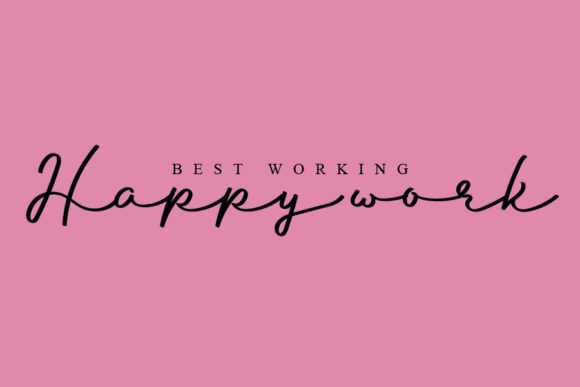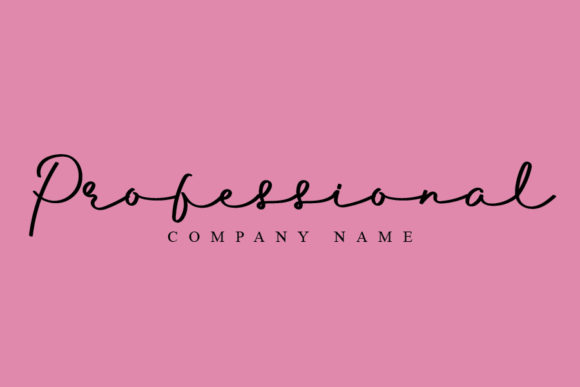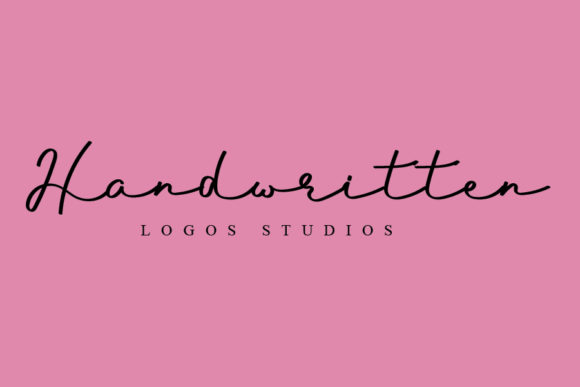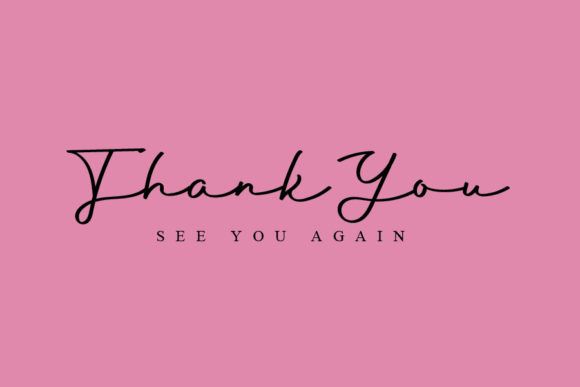
Introducing Hanedda Font: The Sweet and Flowing Handwritten Font for Your Creative Projects
Are you a designer or crafter looking for a font that adds a touch of elegance and whimsy to your creative projects? Look no further than Hanedda Font, a beautiful and flowing handwritten font that’s perfect for a variety of applications. In this article, we’ll take a closer look at Hanedda Font, its features, and how you can use it to elevate your designs.
What is Hanedda Font?
Hanedda Font is a stunning handwritten font that’s designed to add a touch of sweetness and sophistication to your designs. With its flowing curves and elegant lines, Hanedda Font is perfect for creating beautiful wedding invitations, thank you cards, quotes, greeting cards, logos, business cards, and more.
Key Features of Hanedda Font
- Handwritten with love: Hanedda Font is carefully crafted with a handwritten touch, giving it a unique and personal feel.
- Flowing and sweet: The font’s flowing curves and sweet lines make it perfect for creating elegant and sophisticated designs.
- Versatile: Hanedda Font can be used for a variety of applications, from wedding invitations to business cards, and everything in between.
- Easily readable: Despite its elegant and cursive nature, Hanedda Font is easily readable, making it perfect for body text and captions.
Use Cases for Hanedda Font
Hanedda Font is a versatile font that can be used for a wide range of creative projects. Here are some use cases to get you started:
- Wedding Invitations: Add a touch of elegance and sophistication to your wedding invitations with Hanedda Font.
- Thank You Cards: Express your gratitude with beautifully designed thank you cards featuring Hanedda Font.
- Quotes and Posters: Create stunning quotes and posters with Hanedda Font that will grab attention and inspire your audience.
- Greeting Cards: Design beautiful greeting cards for special occasions, such as birthdays, anniversaries, and holidays.
- Logos and Branding: Use Hanedda Font to create a unique and memorable logo for your brand or business.
- Business Cards: Stand out from the crowd with beautifully designed business cards featuring Hanedda Font.
Tips for Using Hanedda Font
Here are some tips to help you get the most out of Hanedda Font:
- Pair with contrasting fonts: Pair Hanedda Font with contrasting fonts to create visual interest and hierarchy in your designs.
- Experiment with colors: Try out different colors and color combinations to find the perfect match for your design.
- Play with sizes: Experiment with different font sizes to create visual interest and emphasis in your designs.